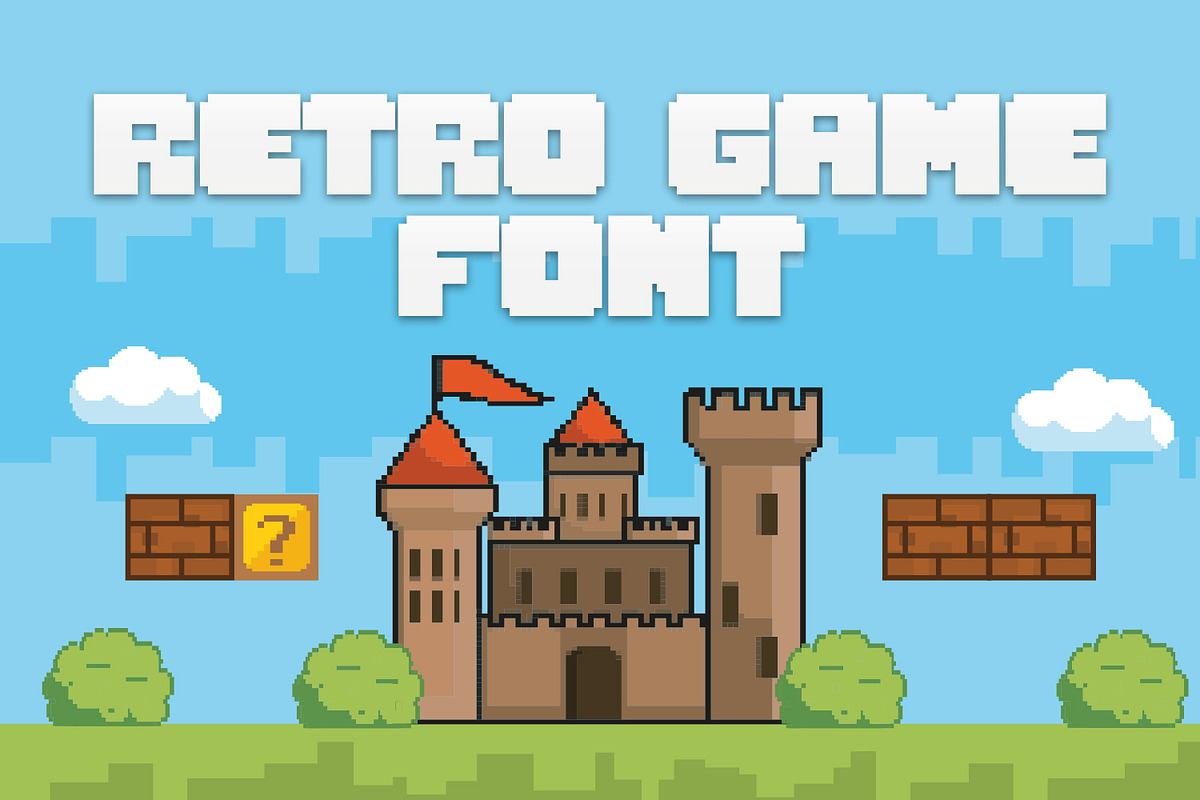
Retro Game Font Free Download
Retro Game Font Free Download is a pixelated, nostalgic typeface inspired by the 8-bit and 16-bit video game era. With its blocky, geometric structure and retro aesthetic, this font is perfect for creating designs that evoke the classic arcade games, vintage console logos, retro video game posters, and pixel art.
Its bold and distinct style makes it ideal for game titles, digital media graphics, and merchandise, bringing a fun, old-school vibe to modern projects. Whether you're designing for a gaming brand, app interface, or playful visual content, Retro Game Font Free Download adds a nostalgic touch that gamers will love.
Level up your designs with the pixel-perfect charm of Retro Game!